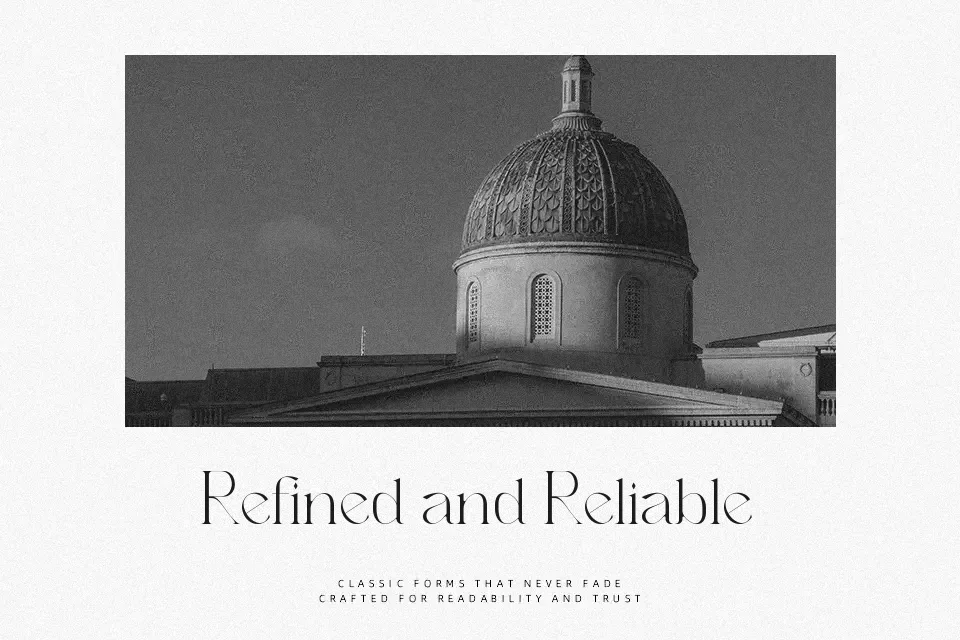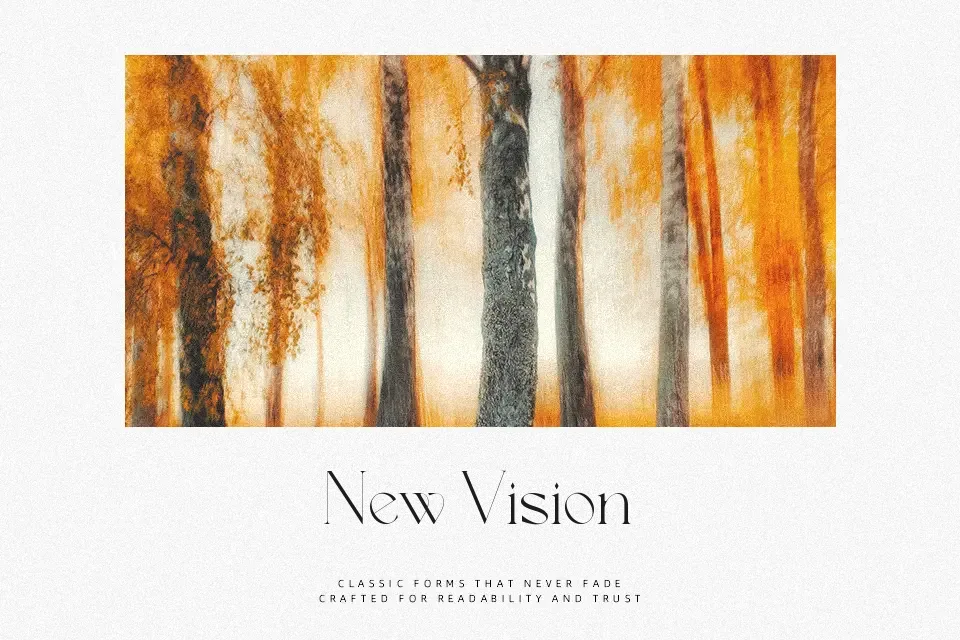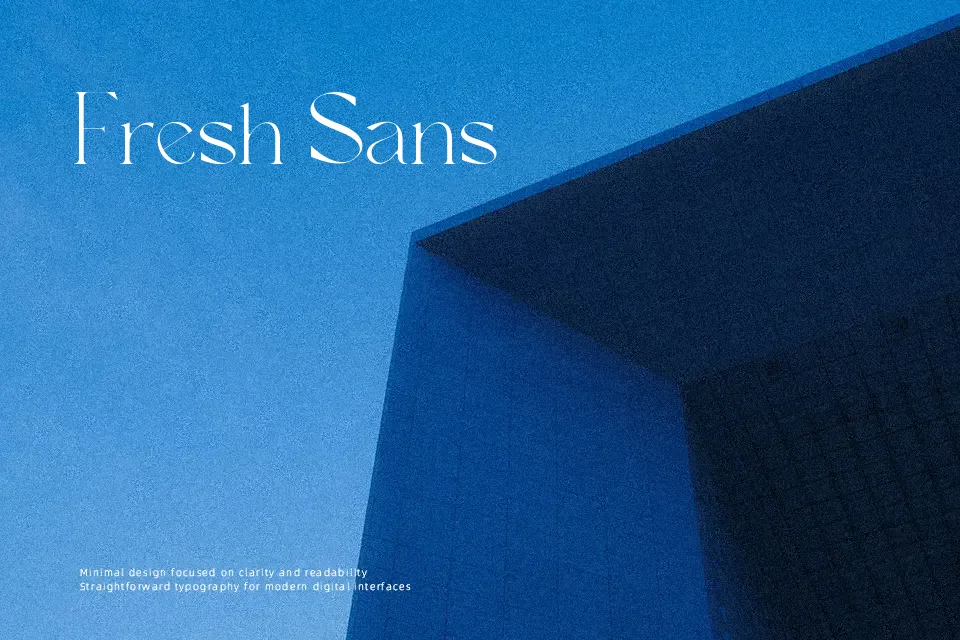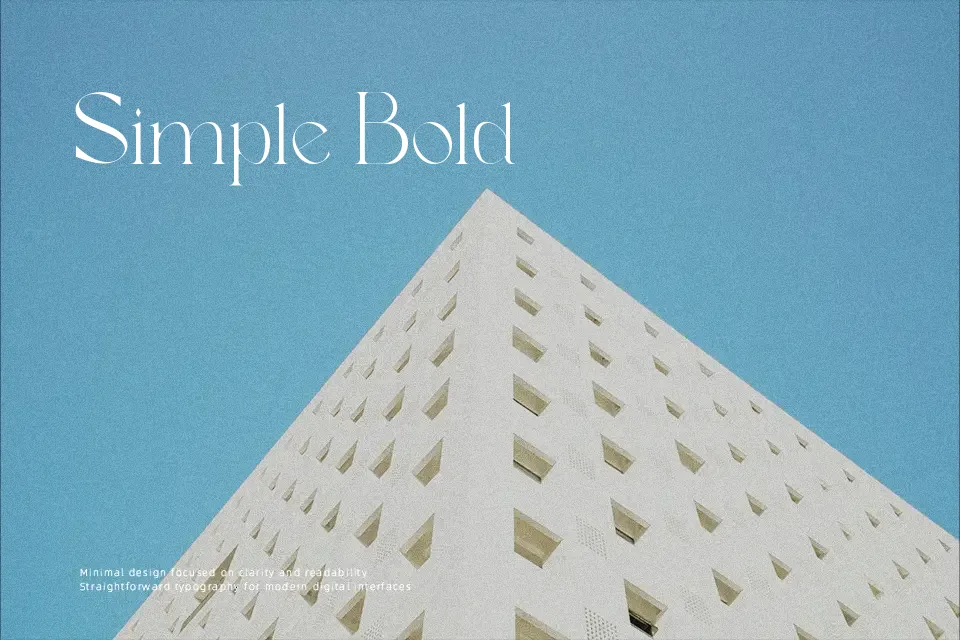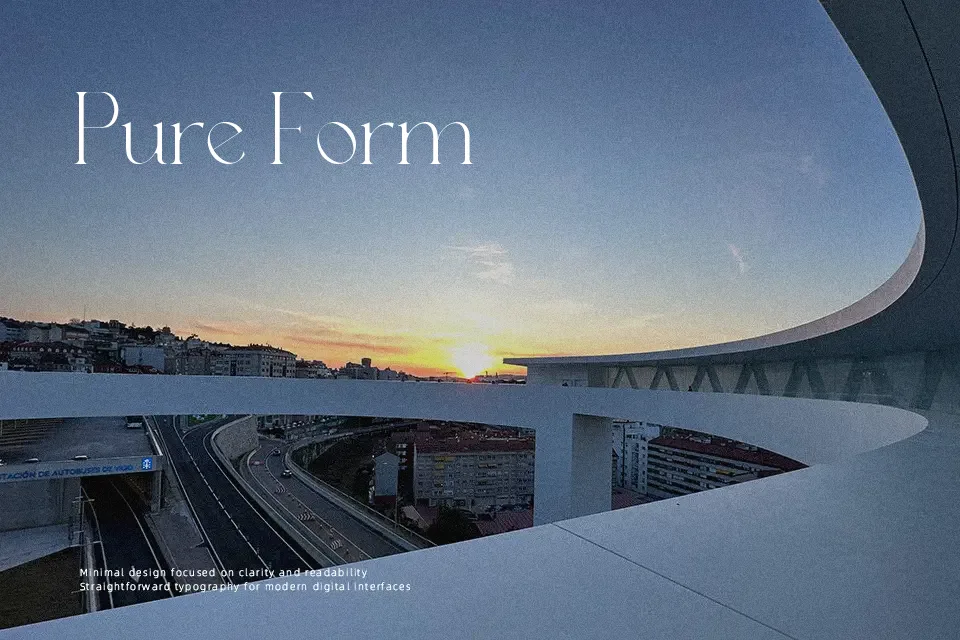
Balinest Font
Balinest is a modern serif with soft, flowing strokes, gentle contrast, and neatly controlled spacing that gives text a polished, upscale feel. Its refined curves and ligatures lean toward a fashion-forward, editorial look, making it useful for boutique branding, magazine titles, jewelry labels, and wedding-related graphics where you want a sophisticated impression. However, its decorative alternates and narrow proportions can make long paragraphs harder to read, so it works better for headlines and short phrases than for dense body copy. Visually, it sits close to other luxury serif display faces, working well when you need high impact typography but less so in minimalist or strictly utilitarian layouts.
fashion brand logos and wordmarks
magazine covers and section titles
jewelry or beauty product packaging
wedding invitations and save-the-date cards
long paragraph text or body copy
formal corporate reports or manuals
small UI labels or mobile app text
highly minimalist or tech-focused designs
Perfect for branding, fashion, and headline, with a artistic and display style.